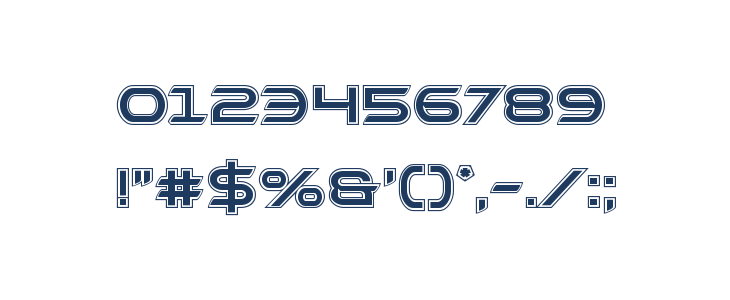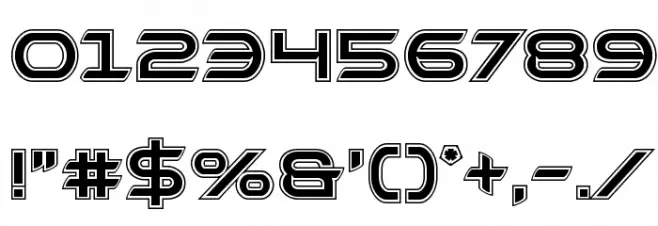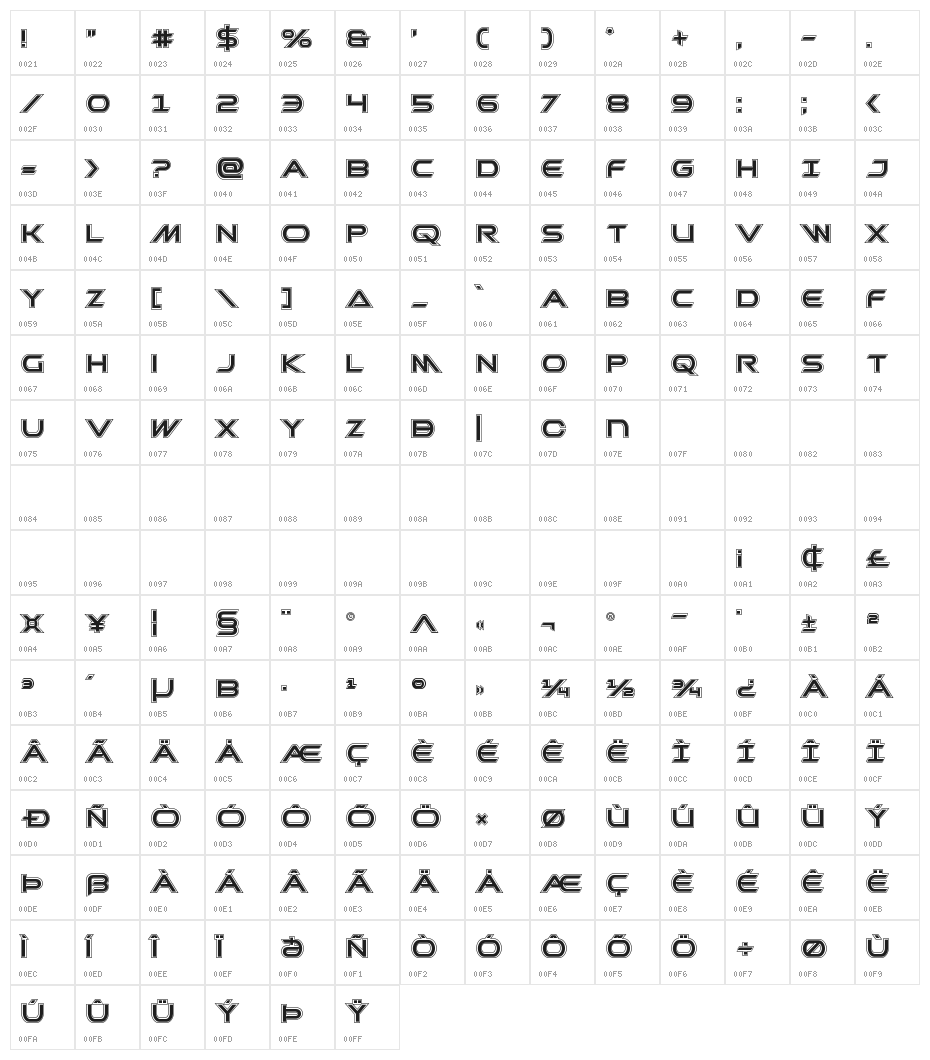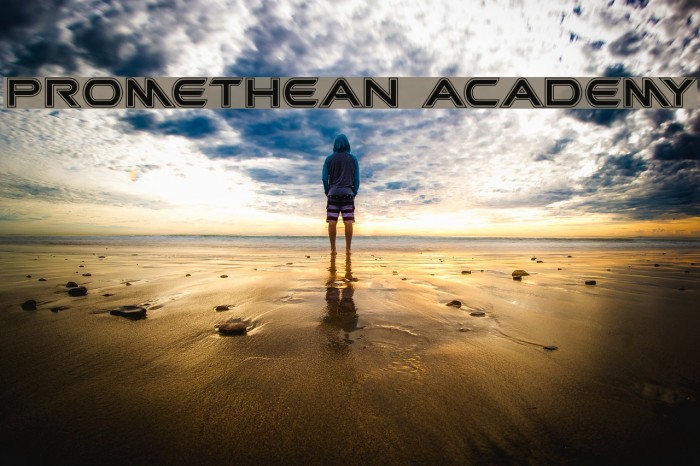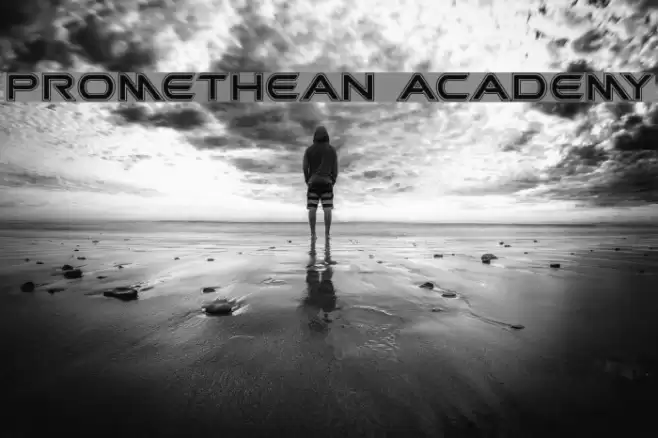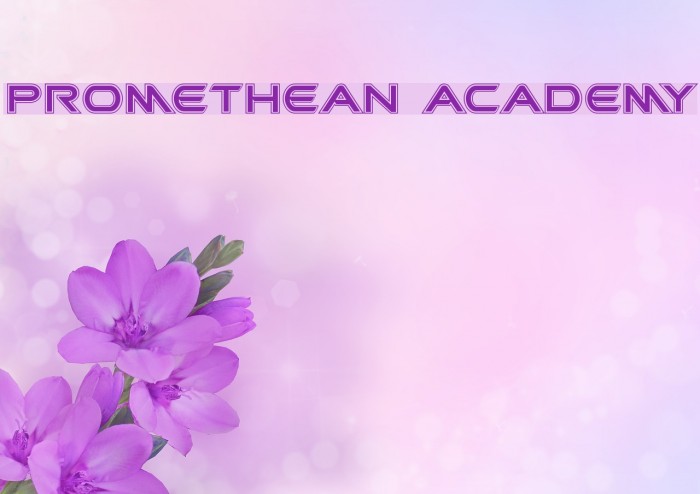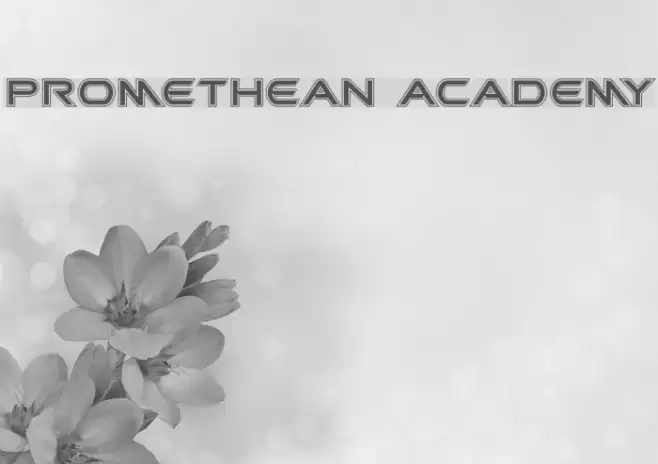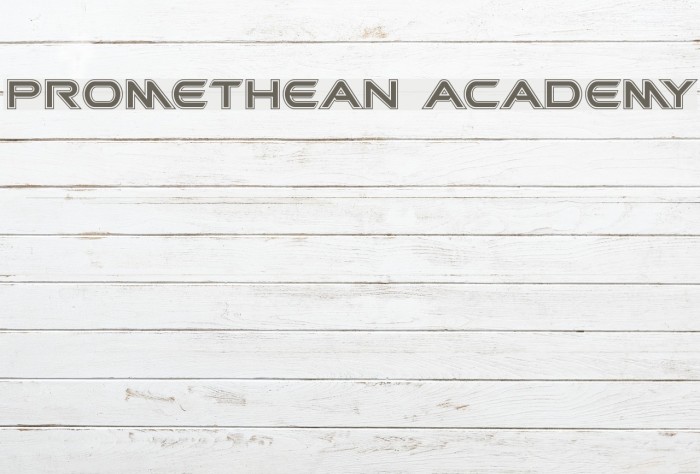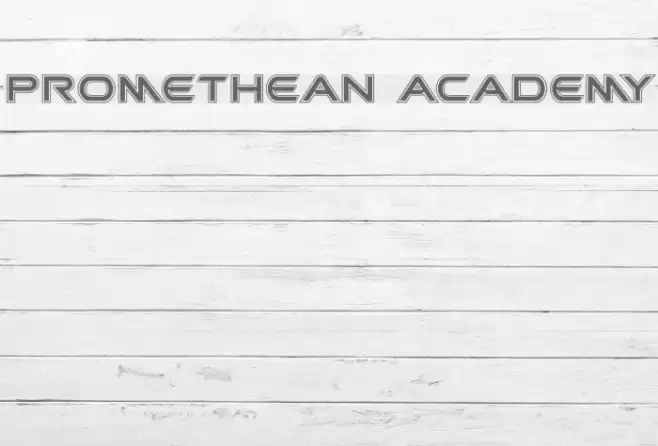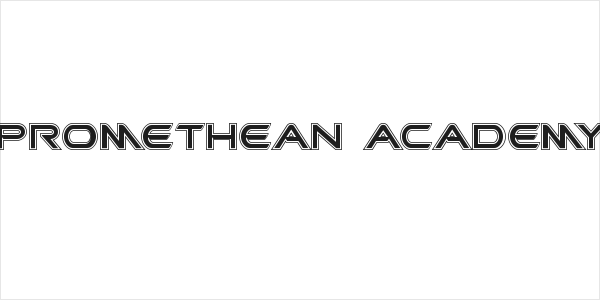
Promethean Academy Font
Promethean Academy Description
This font features a bold, futuristic design with a distinct geometric structure. The characters are outlined with a double line, creating a three-dimensional effect that adds depth and visual interest. The uppercase letters are angular and sharp, while the lowercase letters maintain a consistent style, offering a cohesive look. The numbers and special characters follow the same design principles, ensuring uniformity across all glyphs. This font is ideal for projects that require a modern and dynamic appearance, such as technology branding, sci-fi themed designs, or video game titles.
| Proposed Projects | Ideal for technology branding, sci-fi themed designs, video game titles, and modern posters. |